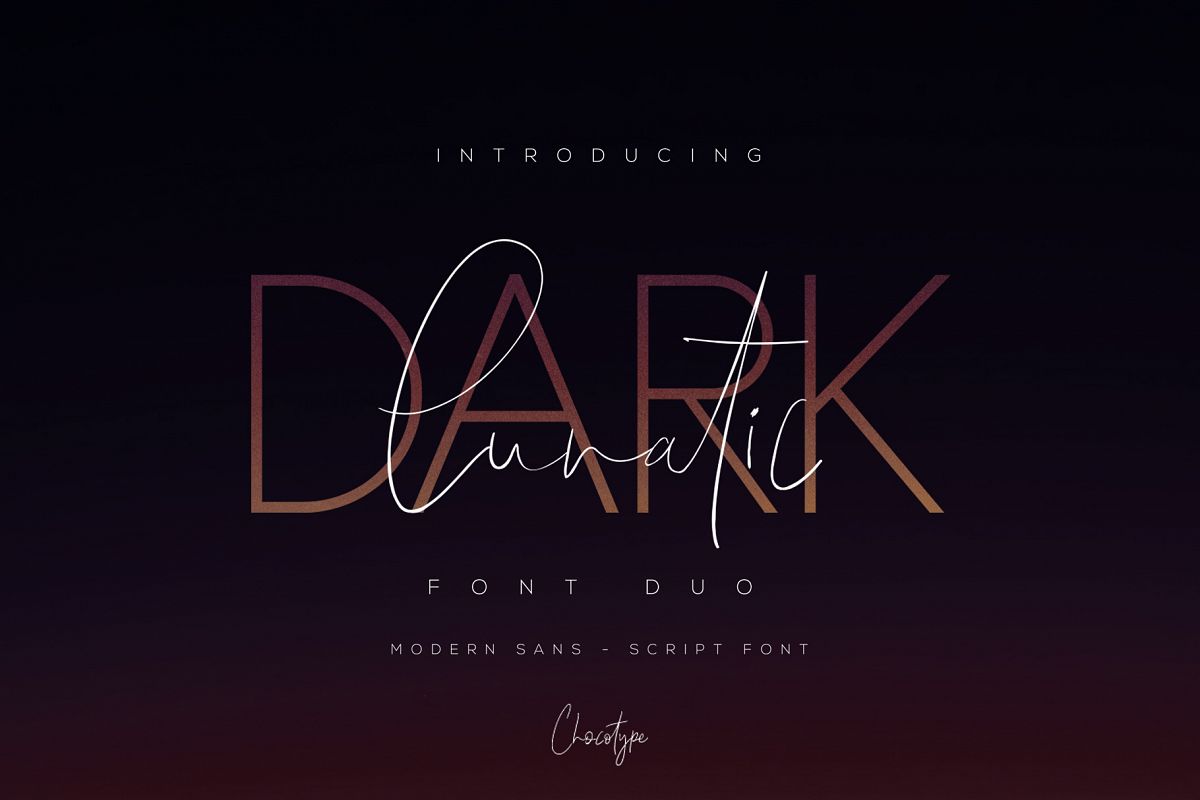
Dark Lunatic
Introducing the Dark Lunatic Duo, a classy, contemporary pair of script and serif fonts.
Dark Lunatic offers beautiful typographic harmony for a diversity of design projects, including logos & branding, wedding designs, social media posts, advertisements & product designs.
• 2 font files: Dark Lunatic "Script" (uppercase & lowercase letters, numbers, punctuation and stylistic ligatures) and "Sans" (uppercase-only letters)